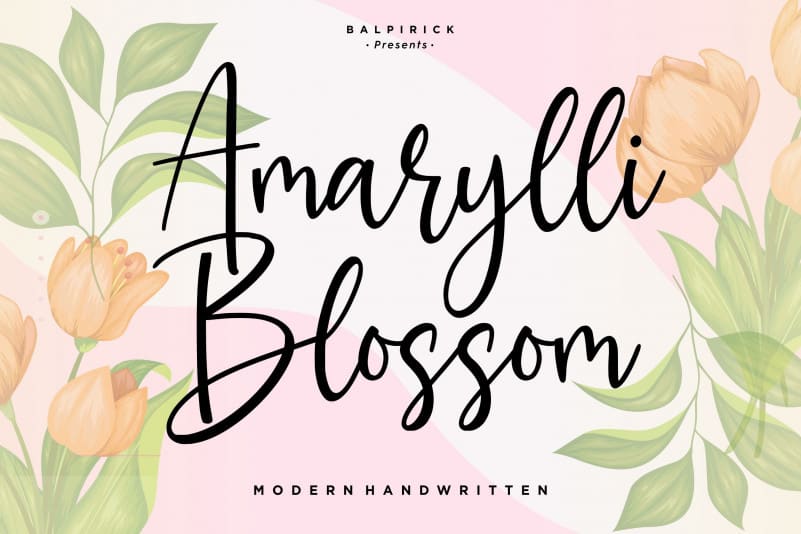
Amaryllin Blossom Script Font
Amarylli Blossom is a Modern Script Font.
Amarylli Blossom is perfect for product packaging, branding project, megazine, social media, wedding, or just used to express words above the background.